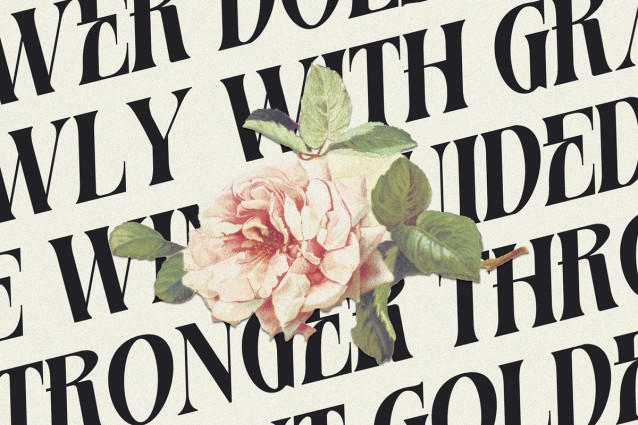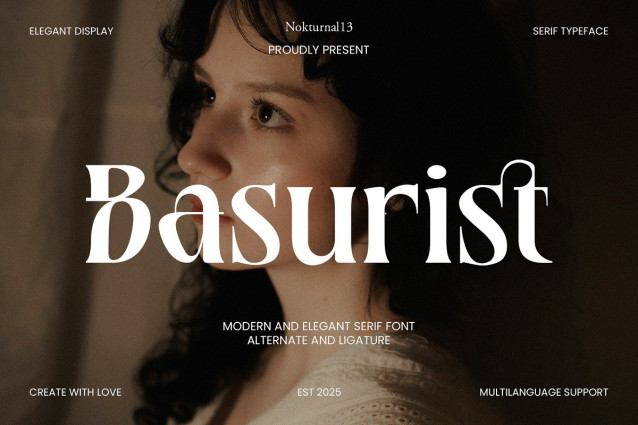
Basurist Font
Basurist Font: Unique Modern Serif Font Meet Basurist, a distinct modern serif font designed to give your projects an elegant yet bold flair. It blends classic serif charm with a fresh, contemporary twist, making your designs truly unforgettable.